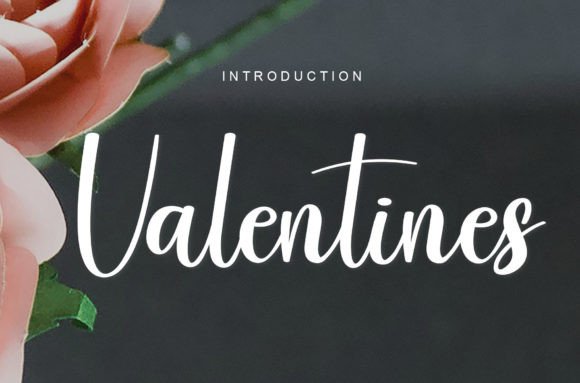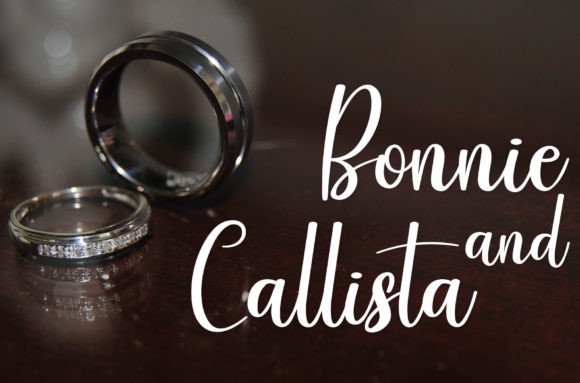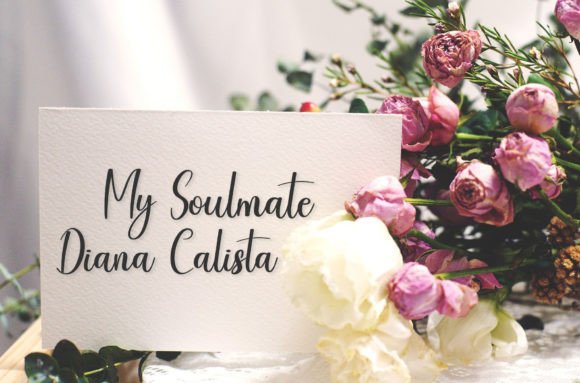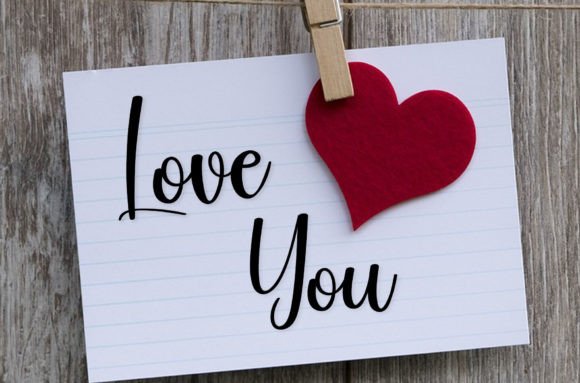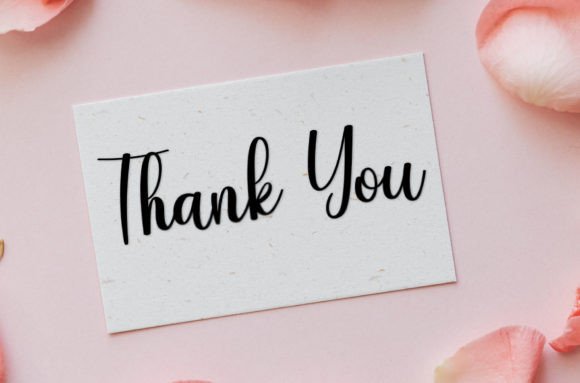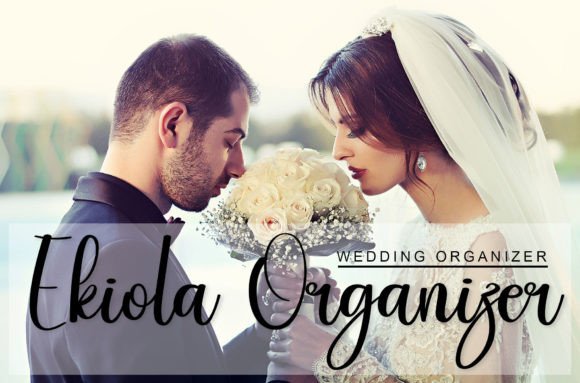
Valentines Font
What Is Valentines Font?
Valentines is a stylish and elegant handwritten font created to give your designs a refined, personal touch. Each character was carefully crafted to bring beauty and charm to any project. Whether you’re working on wedding stationery or branding materials, this font delivers sophistication and warmth.
You’ll love how effortlessly it makes every design look polished and memorable.
Valentines is incredibly versatile, so you can use it for a wide variety of projects. For example, it looks stunning on wedding invitations. Whether your style is classic or modern, this font creates a romantic and graceful mood.
It also works perfectly on thank you cards and greeting cards. If you want to share messages that feel heartfelt and sincere, Valentines helps you express them beautifully.
Additionally, the font is excellent for quotes and social media graphics. Because of its elegant strokes, your content will stand out and make a lasting impression.
You can also use Valentines on logos, business cards, and packaging. Its sophisticated look adds an upscale, professional feel to brands. From personal projects to professional designs, this font adapts seamlessly to your needs.
Why Should You Choose Valentines Font?
There are many reasons why designers love Valentines. First, it remains clean and easy to read at any size. Whether you use it for big headlines or smaller text, every letter keeps its elegant shape.
Valentines pairs beautifully with both serif and sans-serif fonts, making it easy to create layouts that look balanced and cohesive.
Valentines Font adds style, elegance, and personality to any design. For example, if you want your projects to feel warm and romantic, this font helps you achieve that look easily.
Even the most minimalist layouts feel richer and more refined with its graceful strokes. Whether you’re designing wedding stationery, branding, or social media posts, your work will feel more professional and captivating.
Using a high-quality handwritten font also shows your commitment to detail and helps build trust with your audience.
Valentines is more than just a font—it’s a creative tool that adds elegance and charm to any project. From wedding invitations and thank you cards to logos and packaging, it brings a sophisticated handwritten touch that elevates your designs.